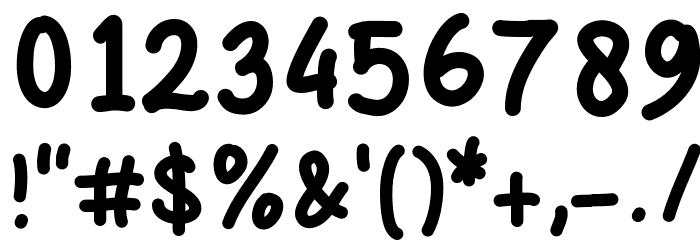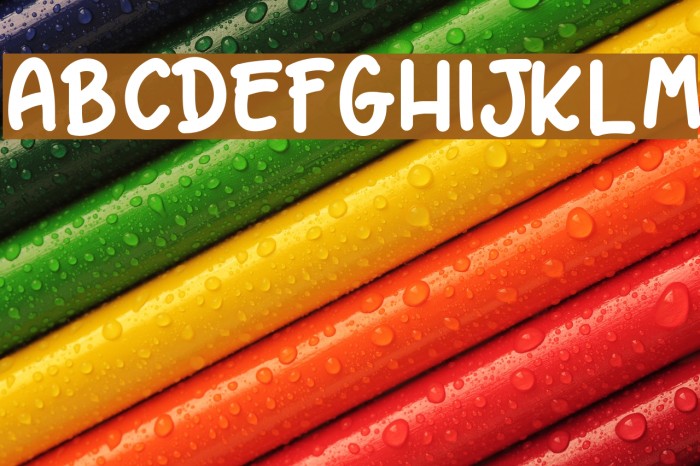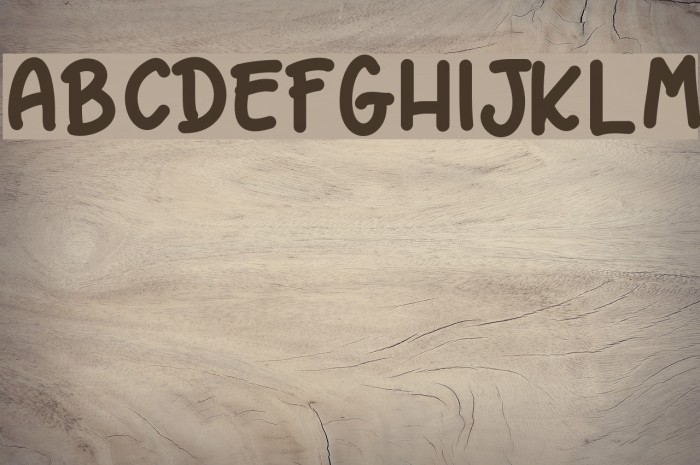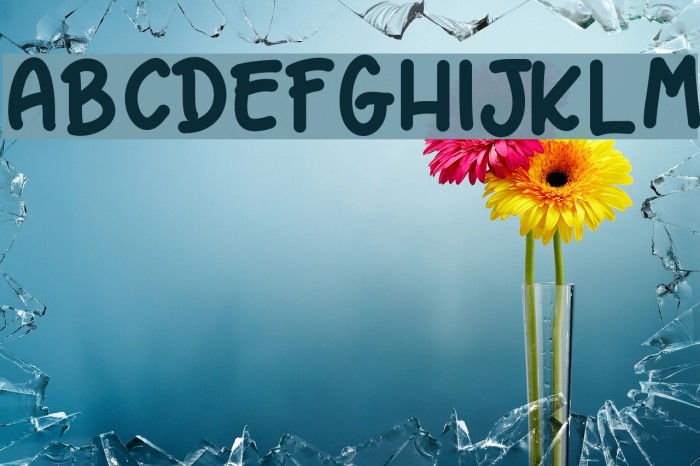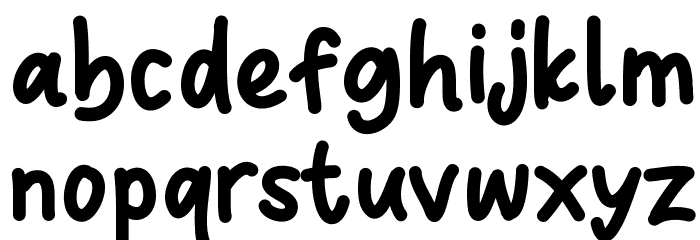
Nocturnal Hand Bold Font
Nocturnal Hand Bold Description
This font exhibits a playful and bold handwritten style, characterized by its rounded and slightly irregular letterforms. The strokes are thick and consistent, giving it a strong presence on the page. Each character has a casual, friendly appearance, making it ideal for informal and creative projects. The uppercase and lowercase letters maintain a cohesive look, while the numerals and special characters are designed to match the overall aesthetic. The font's boldness ensures readability, even at smaller sizes, while its unique style adds a touch of personality to any design.
| Overall Style | Playful, Casual |
| Use Case | Headlines, Logos, Informal Text |
| Proposed Projects | Ideal for children's books, greeting cards, posters, and playful branding. |